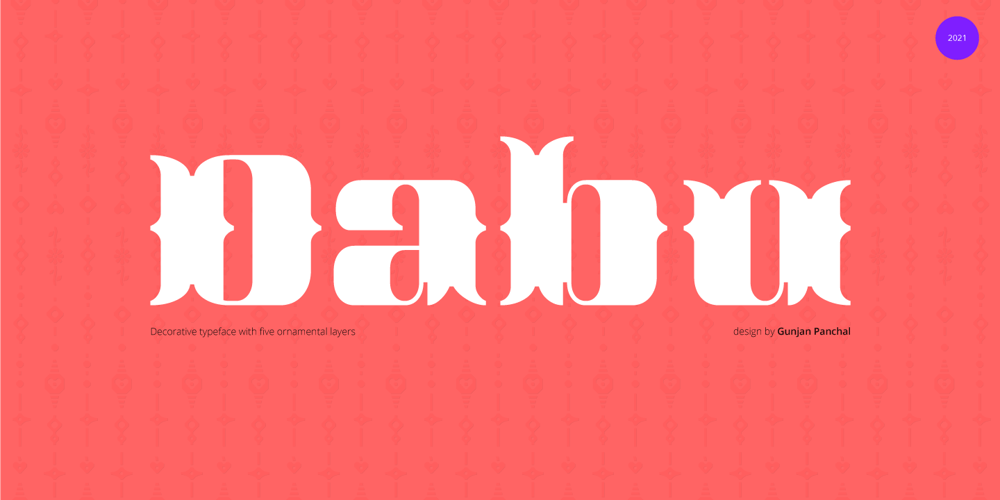
Dabu Font Family was designed by Gunjan Panchal and published by Gunjan. Dabu contains 6 styles and family package options. Dabu is a hand paint inspired high contrast decorative display typeface. With unique five ornamental layers which makes Dabu very presentable and eye catchy.Dabu has identical styles that very well goes with logo design, headline, creative sign boards, poster design, social media, fashion brand, beauty product branding, large print and screen.How to use Dabu ?- Select Dabu-Regular.- Copy the same one more time.- Select and choose any one Dabu Depth, Dabu Heart, Dabu Flower, Dabu Diamond, Dabu Square.- Select both and Aline.- Bingo!! :)No animals harmed in the making of this typefaceDabu is supportive to Adobe illustrator, Adobe Photoshop, Adobe In-design and All Adobe.